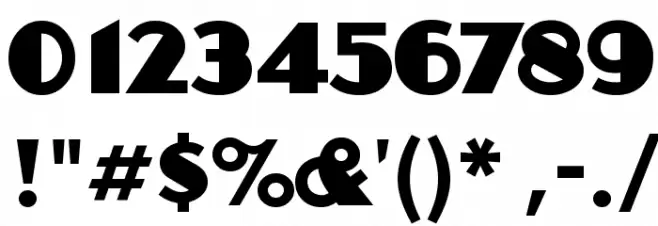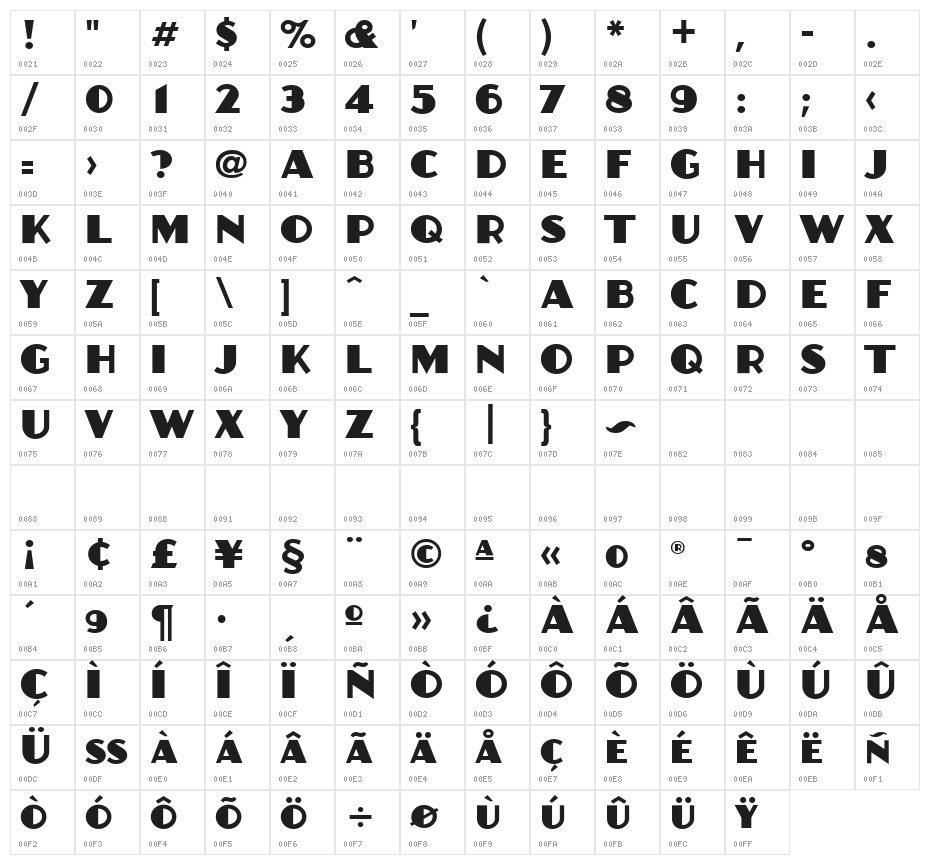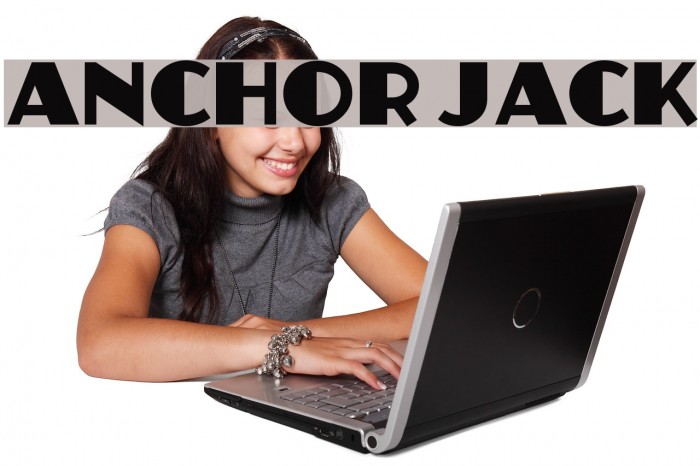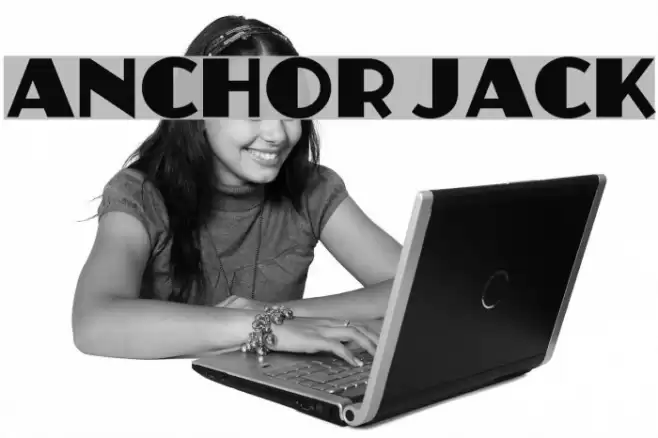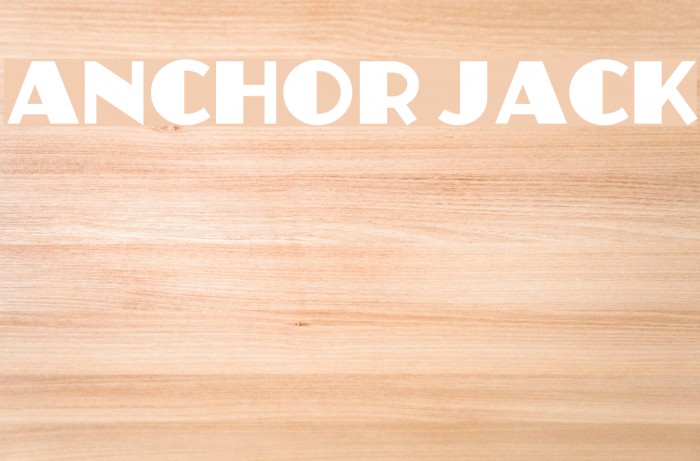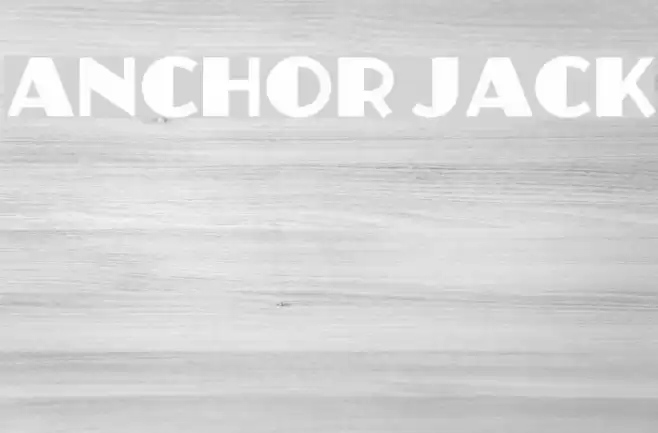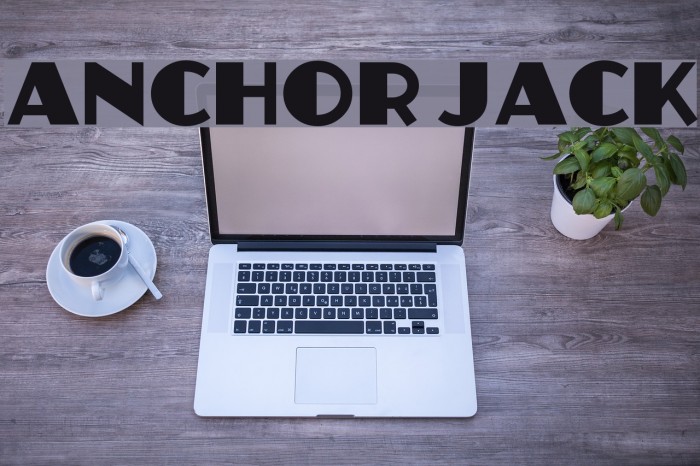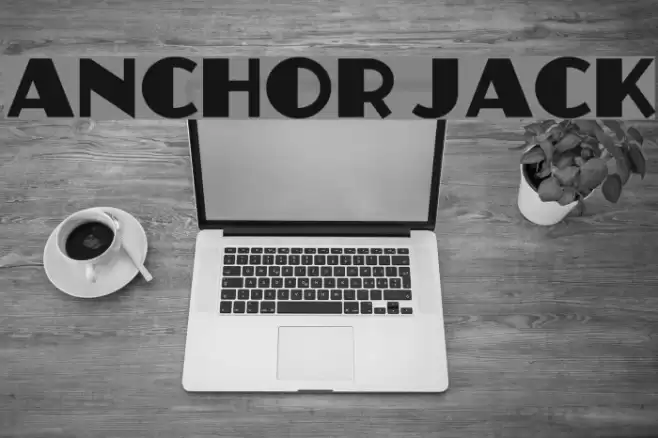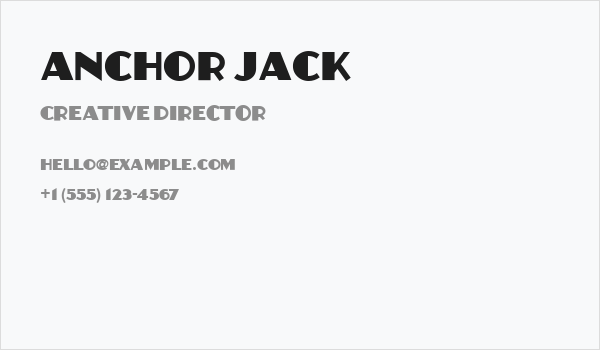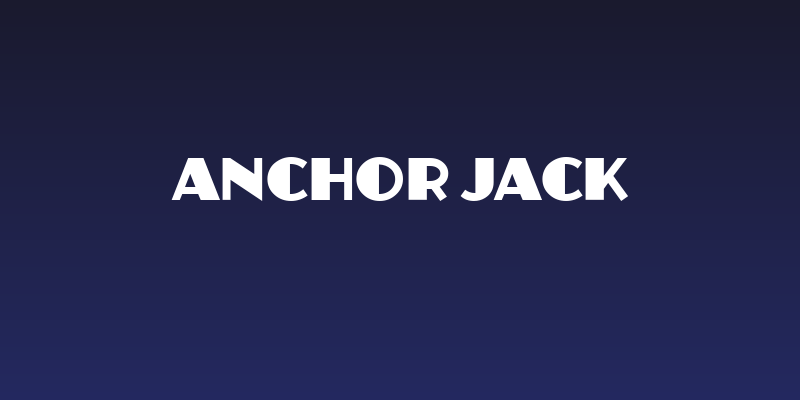
Anchor Jack Font
Anchor Jack Description
This font features bold, geometric letterforms with a strong presence. The characters are designed with a consistent weight, offering a robust and impactful appearance. The uppercase letters are particularly striking, with clean lines and a modern aesthetic. The numerals and special characters maintain the same boldness, ensuring uniformity across all glyphs. The overall style is suitable for making a statement, with its thick strokes and minimal contrast, making it ideal for attention-grabbing designs.
Proposed ProjectsIdeal for branding, posters, headlines, and any design requiring a bold statement.